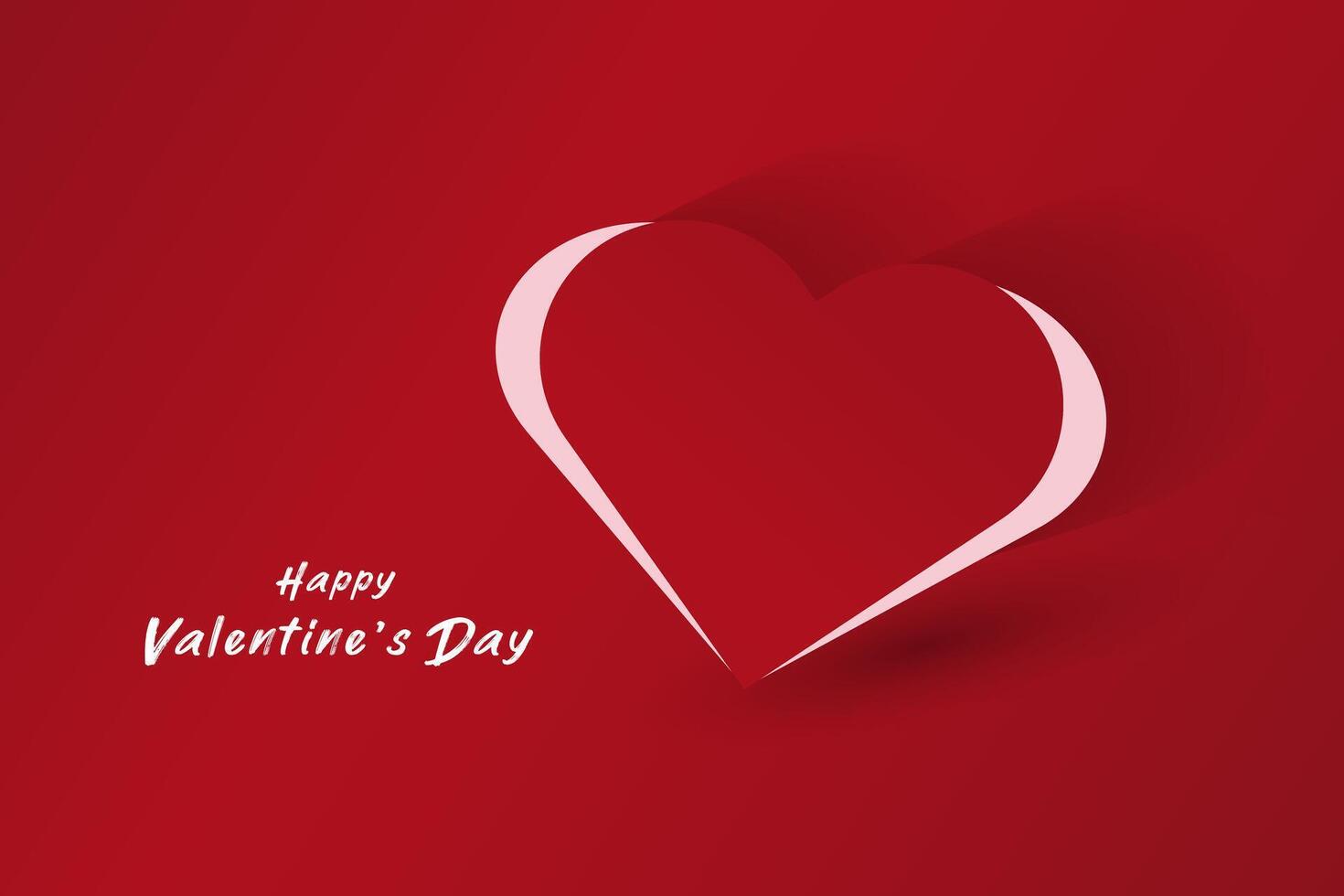
A romantic graphic with a bold red background, a hollow white heart outline, and Happy Valentines Day written in a soft, elegant font on the right. vector